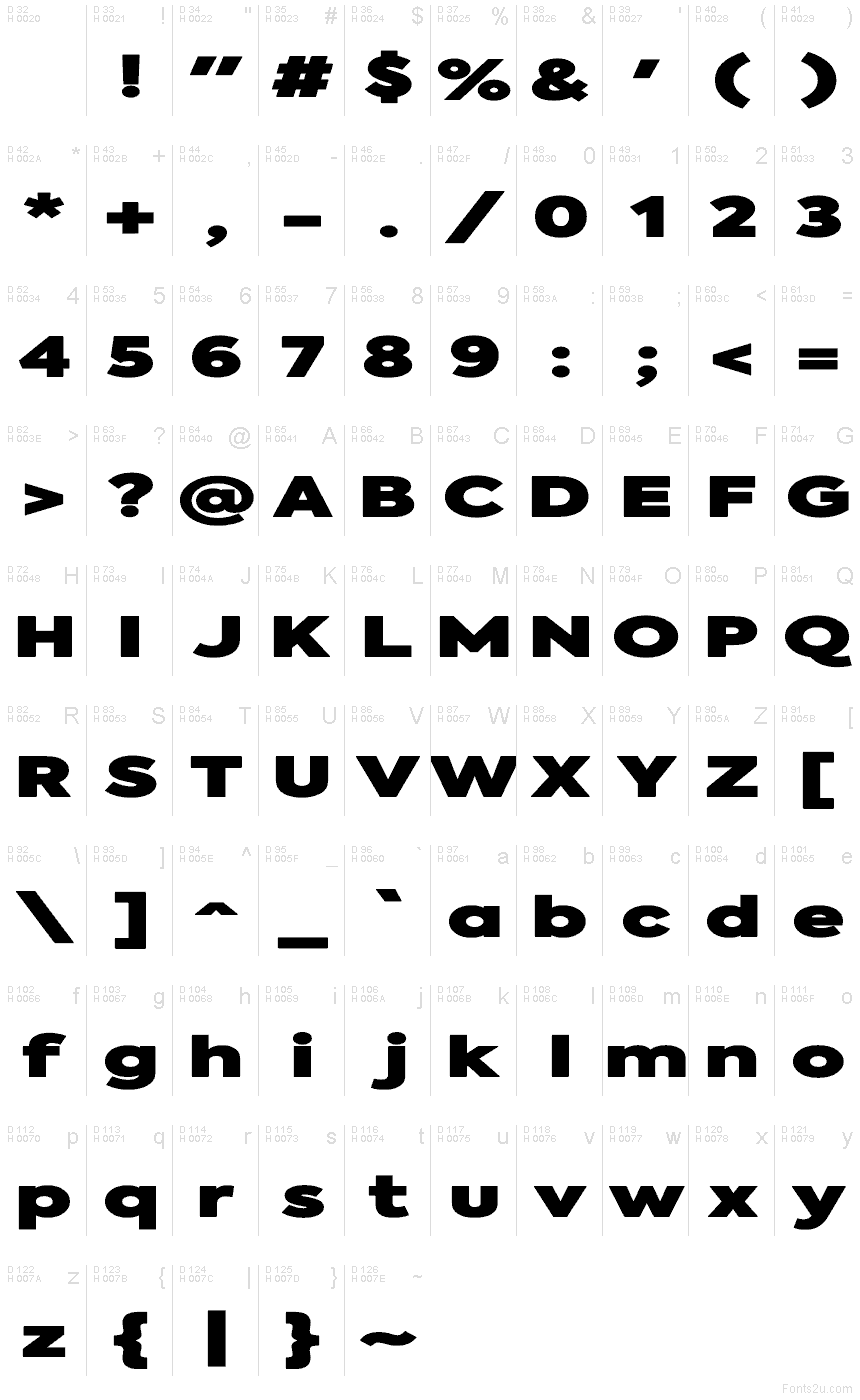
NCL Neovibes Demo
NCL Neovibes font is a bold, expanded free sans serif font created by Enxyclo Studio. Its modern appearance results from the blocky style and geometric structures of its characters. The combination of all elements gives it its futuristic vibes which are present in each letter, even numbers. Finally, curves dominate the layout without eliminating balanced right-angle corners.
Use NCL Neovibes in product packaging designs, typography-centric branding projects, posters, book covers, titles and bodies of text for magazines or newspapers. Additional use cases may include digital publishing assets such as websites and apps together with printed works like albums or other relevant visual marketing materials.